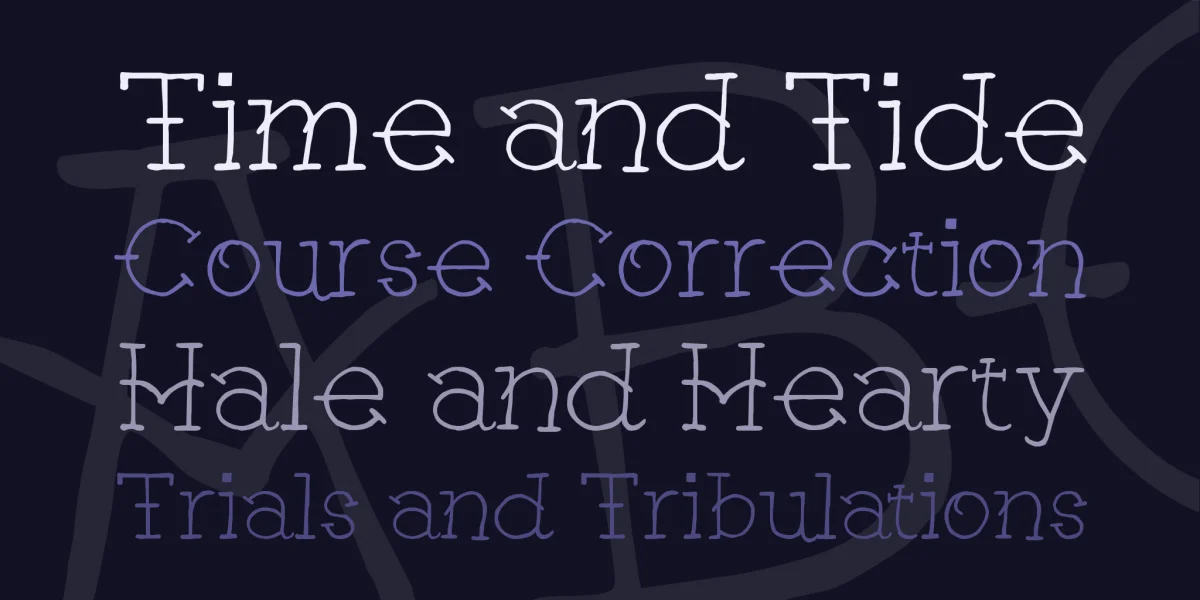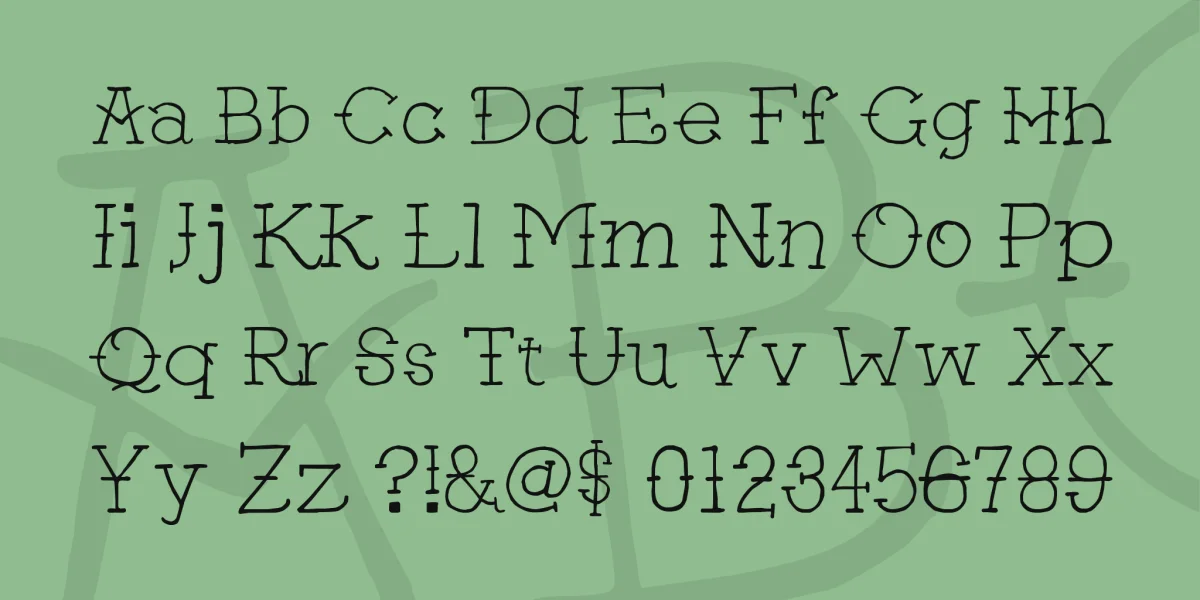
The Brain Eater's Mother is so covered in ink his own Brother doesn't even recognize her! In the spirit & style of her ubiquitous ink, here's a nifty-cool typeface ready to be drilled into your personal flesh canvas.